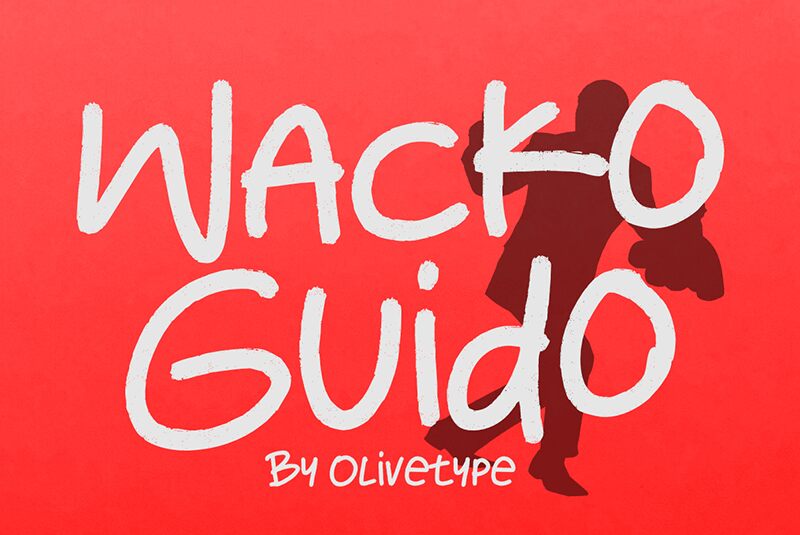
Wacko Guido font is a free handwritten font created by Olivetype. It comes with sparse strokes, freeform spirals, and varied letter heights that together form eccentric yet artistic characters. Be as imaginative as you want when working with the font whose look is perfectly suited for contemporary applications in creative design projects.
Let the scenarios to insert Wacko Guido content be endless! Signs, posters, digital ads, t-shirts prints, mugs designs and much more await your new input. With this font in your toolbox, a completely new world of typography possibilities shall open up to you!